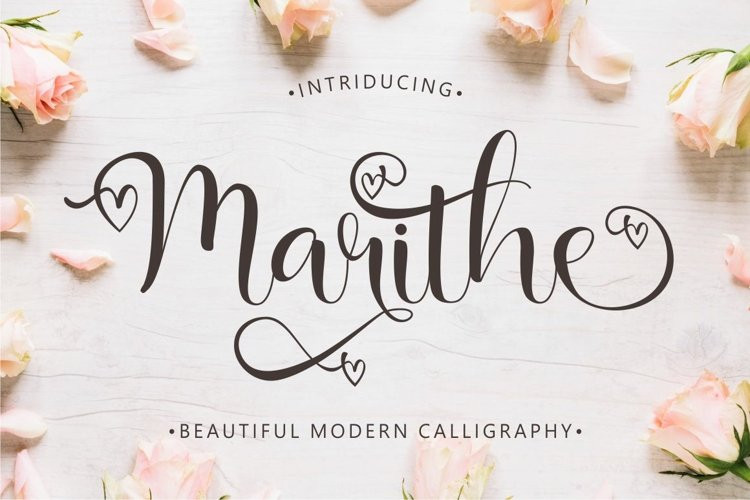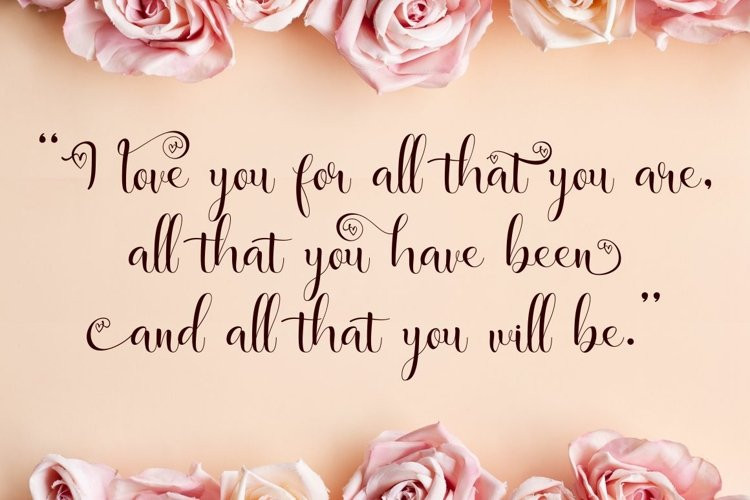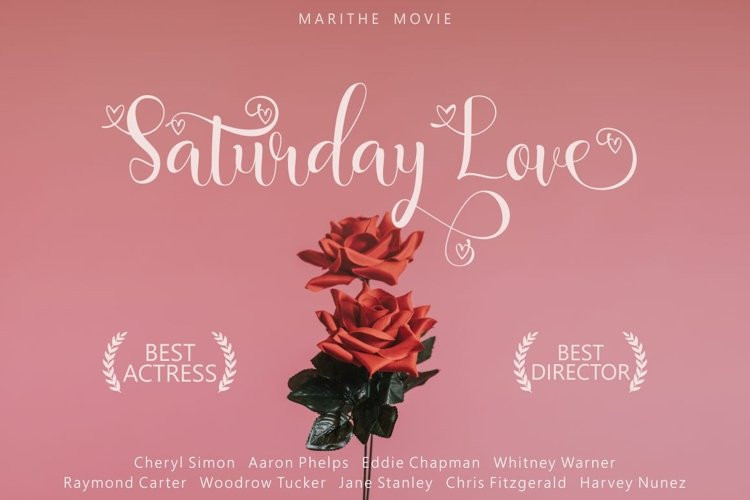
Marithe Font
Marithe FontMarithe – Beautiful Modern Calligraphy. Marithe wedding script fresh & modern script with handmade calligraphy style. This font is inspired by the character’s style which shows the romance of a relationship through hand strokes.
This font is perfect for a professional touch making this font more elegant and suitable for all types of projects you are working on, especially for romantic-themed work. But this font is also suitable for logos, branding, greeting cards, invitation cards, advertisements, titles, headlines, book titles, stickers, packaging, quotes, posters, t-shirts/apparel, billboards and others.